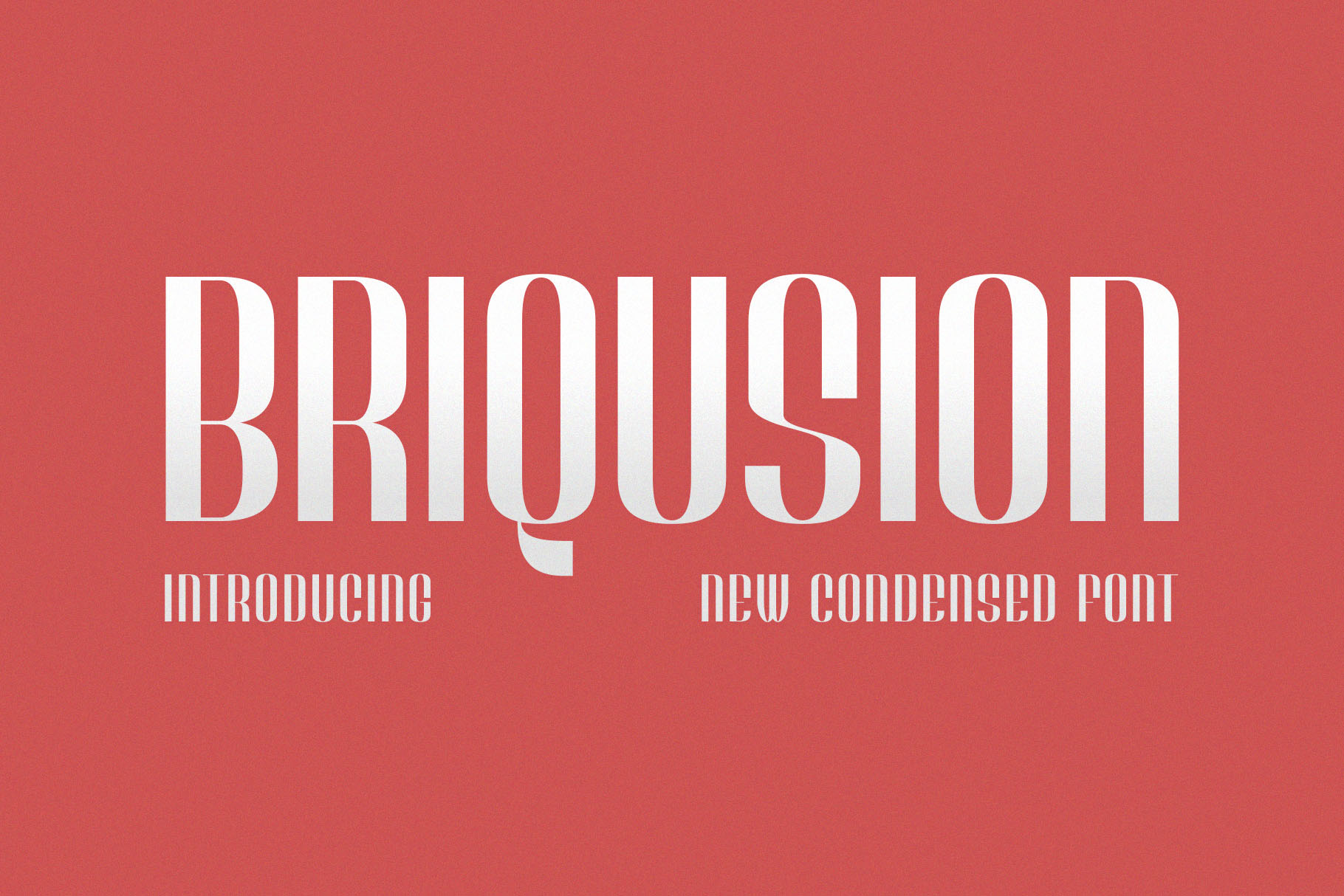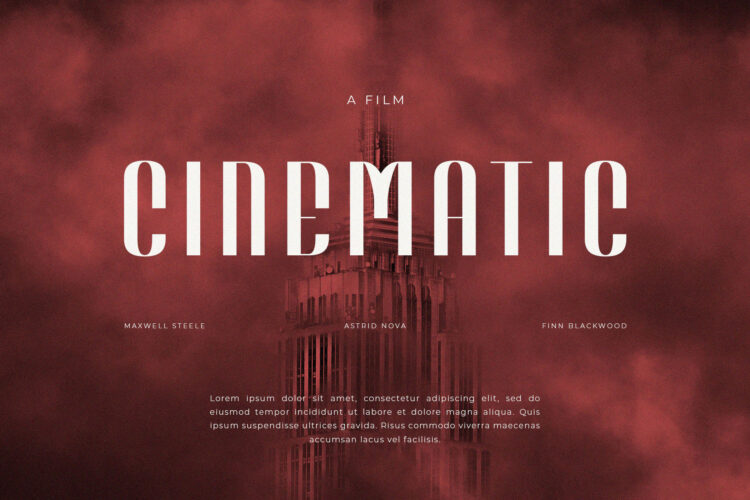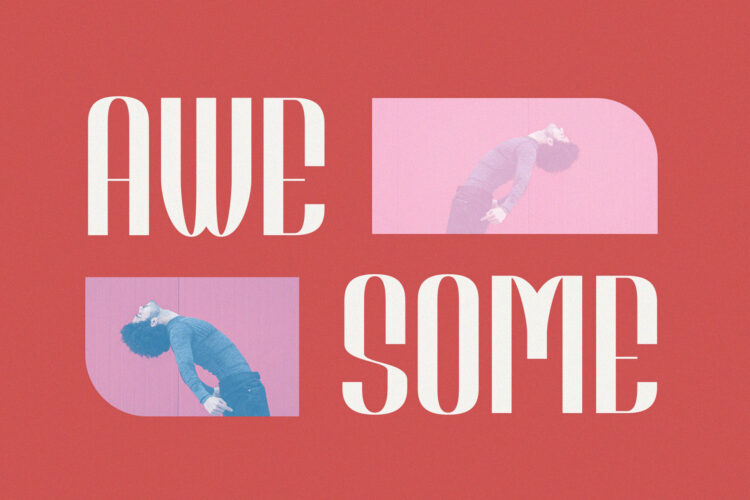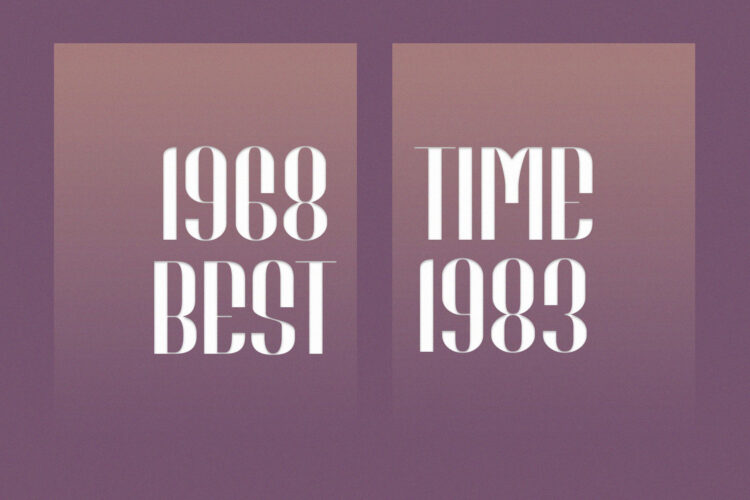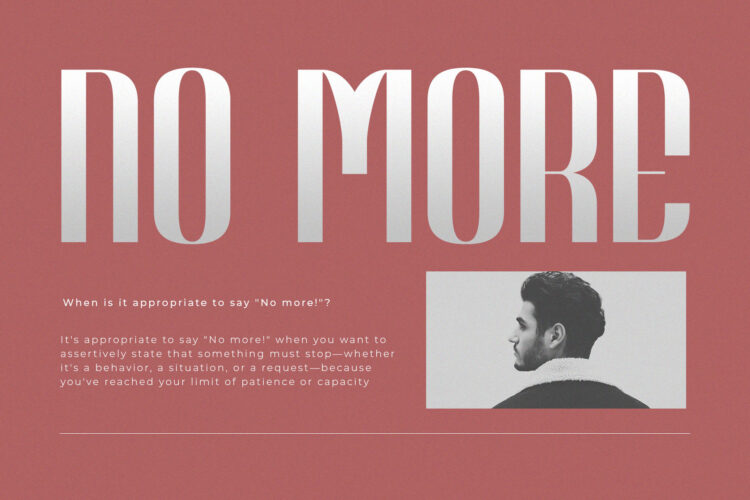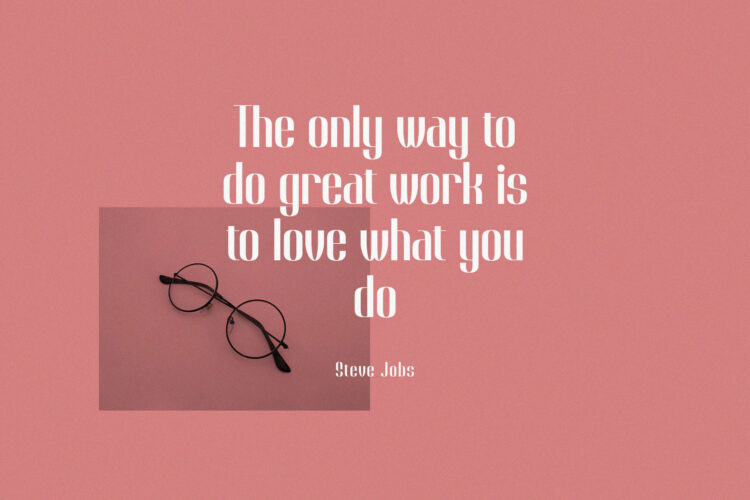
Briqusion – Modern Retro Condensed Sans Serif Font with Uppercase & Lowercase for Bold Branding & Posters
Briqusion is a bold and stylish condensed sans serif font that blends retro aesthetics with modern minimalism. Designed with both uppercase and lowercase characters, Briqusion features tight proportions, clean lines, and striking curves that give your design a bold personality.
This font is perfect for posters, logo designs, editorial titles, album art, fashion branding, and display headlines that demand attention with a distinctive twist.
Ideal For:
– Modern branding & logo design
– Retro-futuristic poster layouts
– Fashion lookbooks & digital magazines
– Album covers & event promotions
– Editorial titles & creative packaging
Font Features:
– Uppercase & lowercase alphabets
– Condensed width with high vertical contrast
– Unique shapes with elegant geometric influence
– Multilingual support
– Optimized for both print and digital use
Whether you’re building a futuristic brand identity or looking to create an impactful visual statement, Briqusion delivers a refined typographic voice with strong presence and retro charm.